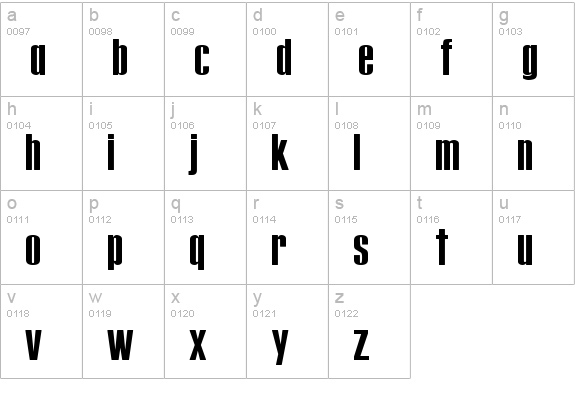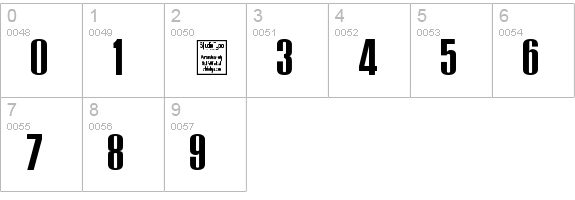
Tipo PRESS Font Details
Tipo PRESS is a modern and versatile font that effortlessly combines elegance with a touch of edginess. With its clean lines and bold strokes, this font is perfect for adding a contemporary twist to any project. Whether you're designing a logo, creating a captivating headline, or crafting a stylish invitation, Tipo PRESS is sure to make a lasting impression. One of the best things about Tipo PRESS is that it is free. Yes, you read that right. This amazing font is freely available to download at FontsMarket.com. Now you can enjoy the beauty and sophistication of Tipo PRESS without having to spend a penny. It's a win-win situation! Designed with precision and attention to detail, Tipo PRESS offers a wide range of weights and styles, allowing you to find the perfect fit for your design needs. From light and airy to bold and impactful, this font has it all. Its versatility makes it suitable for various projects, from branding and advertising to social media graphics and website design. Not only does Tipo PRESS look great on screen, but it also excels in print. Its high-quality design ensures that every letter is crisp and clear, even in small sizes. Whether you're printing business cards, brochures, or posters, Tipo PRESS will deliver stunning results every time. So why wait? Download Tipo PRESS for free at FontsMarket.com and start elevating your designs to new heights. With its modern aesthetic and endless possibilities, this font is a must-have for any designer or typographer. Don't miss out on the opportunity to add this gem to your font collection. Get ready to impress with Tipo PRESS!